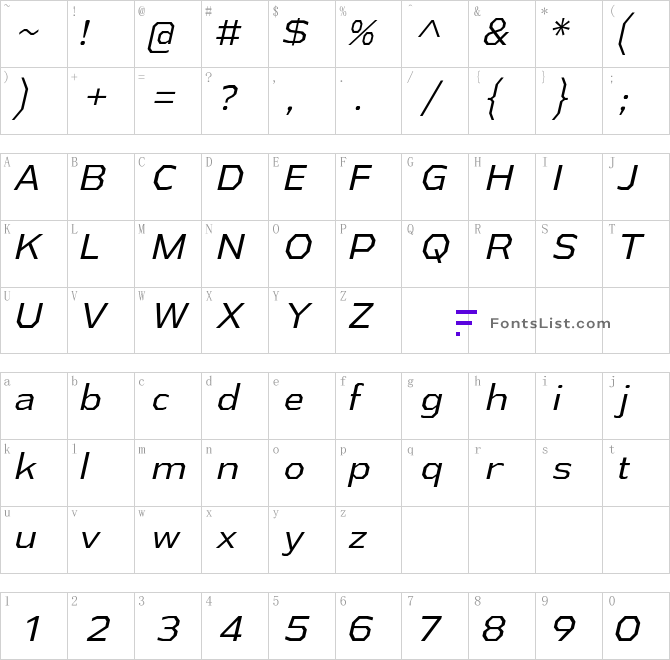
- Font Name:Athabasca Bk
AthabascaBk-Italic.ttf is a very beautiful artistic font, AthabascaBk-Italic.ttf is widely used in the design and printing of various books and pictures,AthabascaBk-Italic.ttf has a strong visual impact,AthabascaBk-Italic.ttf is a commonly used font in newspapers, magazines and books, and is used in posters, e-commerce Poster design, store design, logo design, font design and other fields.AthabascaBk-Italic.